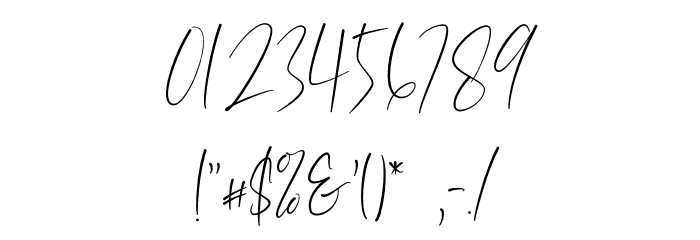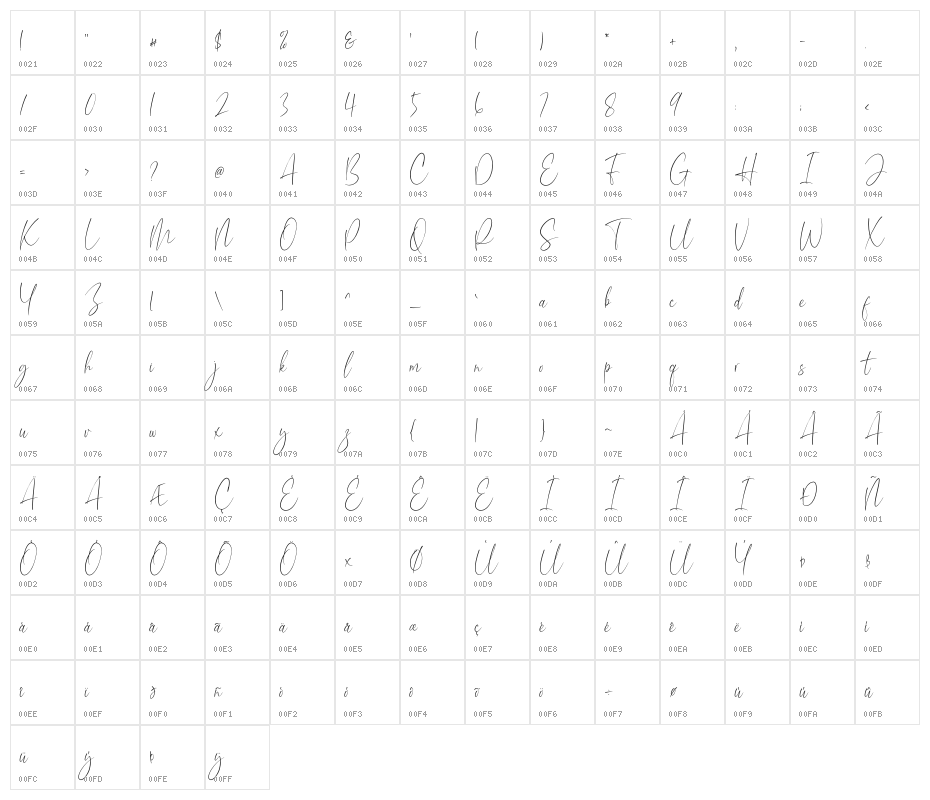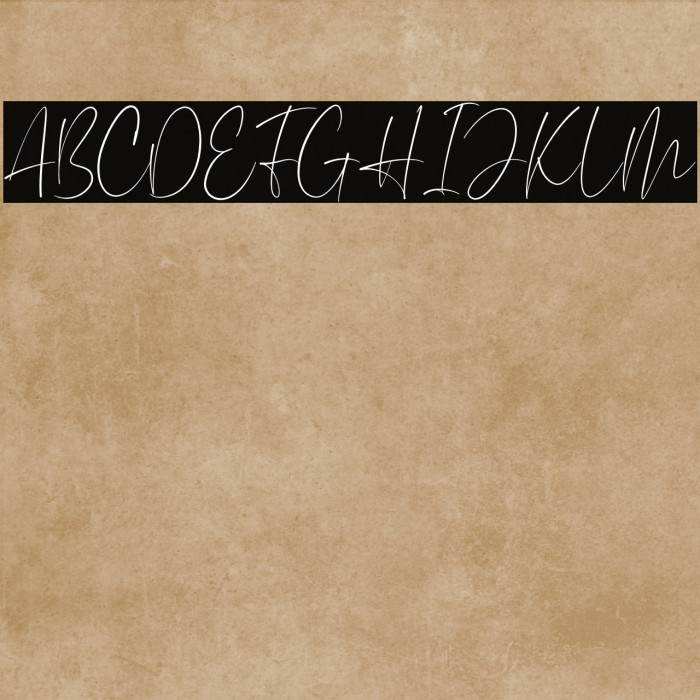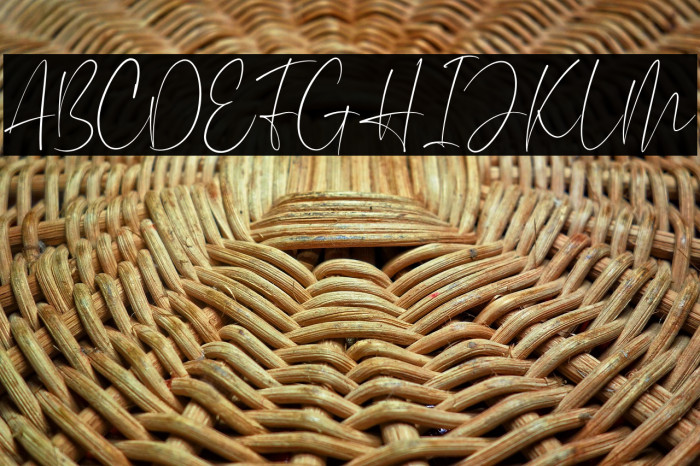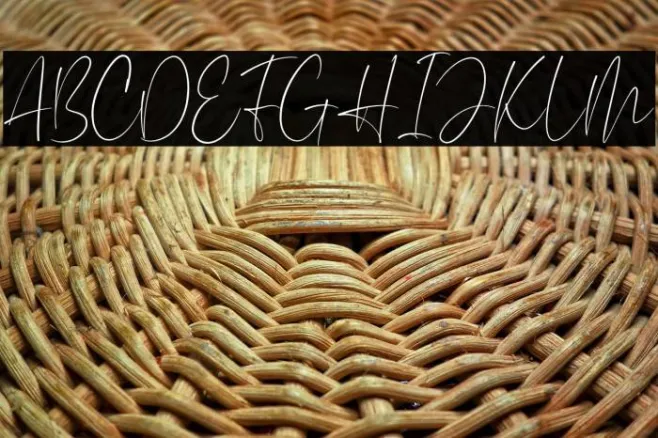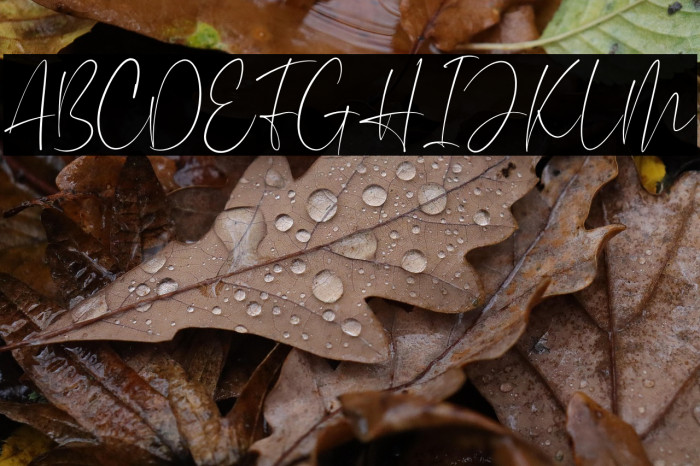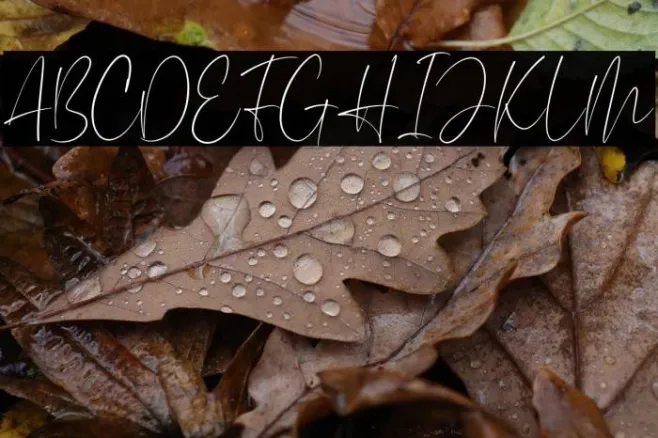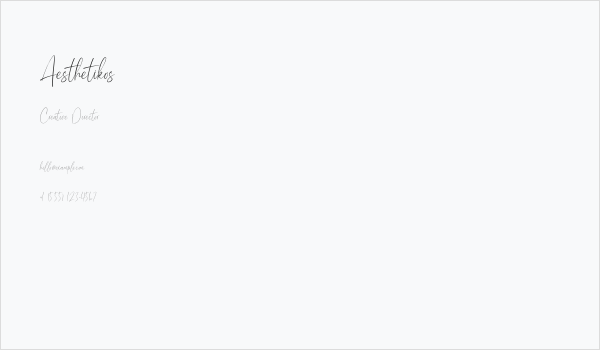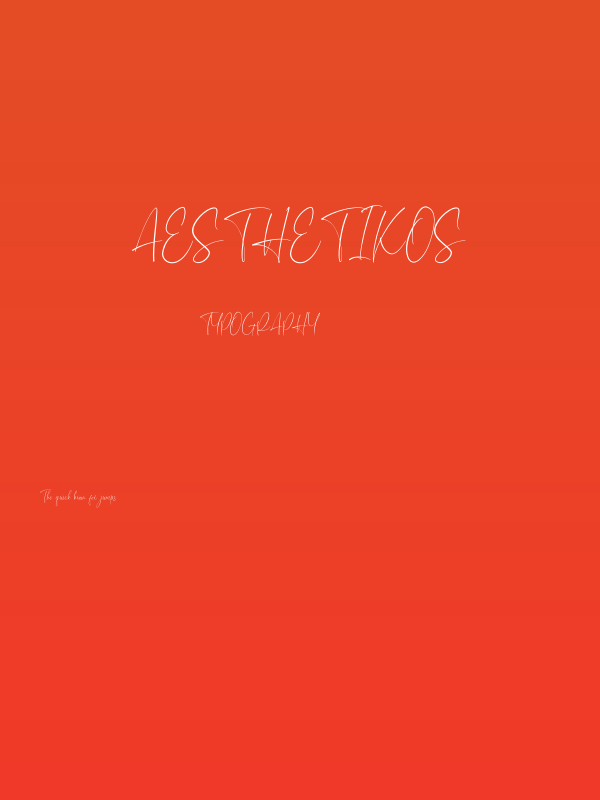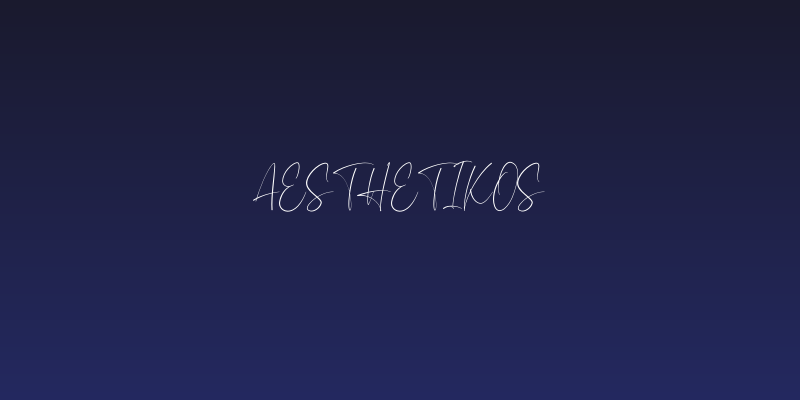
Aesthetikos Font
Aesthetikos Description
This font exudes a sense of elegance and fluidity, characterized by its handwritten style that mimics the natural flow of cursive writing. The letters are gracefully elongated with a slight slant, giving it a sophisticated and artistic appearance. The strokes are thin and delicate, with a consistent flow that enhances readability while maintaining an artistic flair. The uppercase letters are bold and prominent, while the lowercase letters are more subtle and connected, creating a harmonious balance. The numerals and special characters follow the same elegant style, making this font versatile for various uses.
| Overall Style | Elegant, Artistic |
| Use Case | Invitations, Personal branding, Artistic projects |
| Proposed Projects | Ideal for wedding invitations, greeting cards, personal branding, and artistic projects that require a touch of elegance and sophistication. |